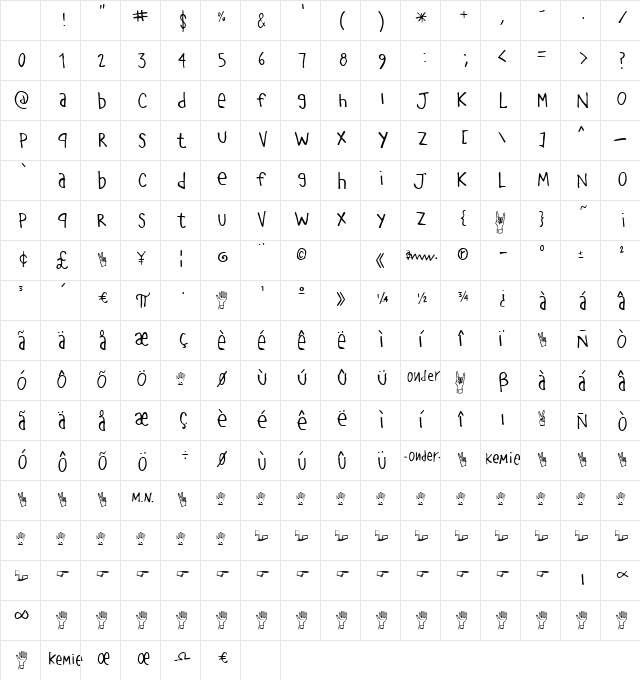
Manita Regular Free Font
Manita Regular
Manita Family
Design Context for Manita
Manita is a composed and adaptable typeface that performs quietly and consistently across a wide range of design contexts.
Pro Tip: Use Manita in both headline and body roles to test its range before committing to a single application.